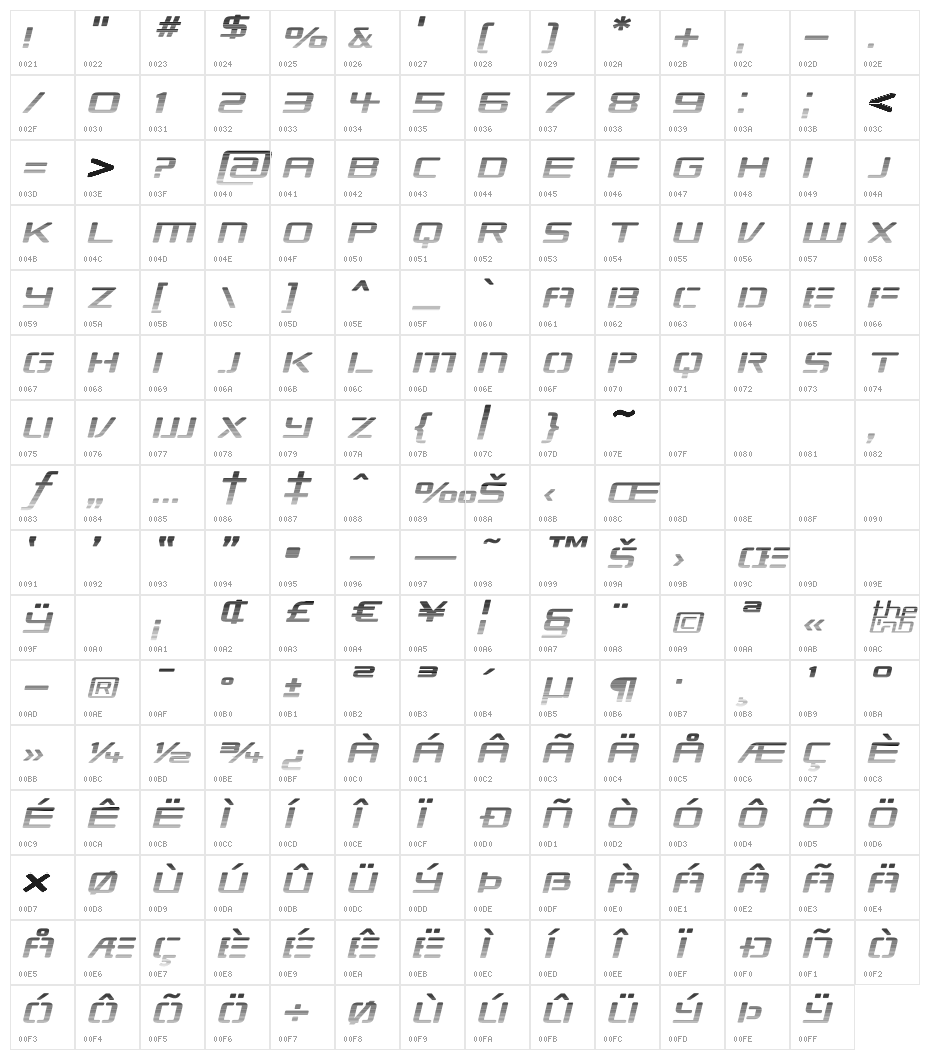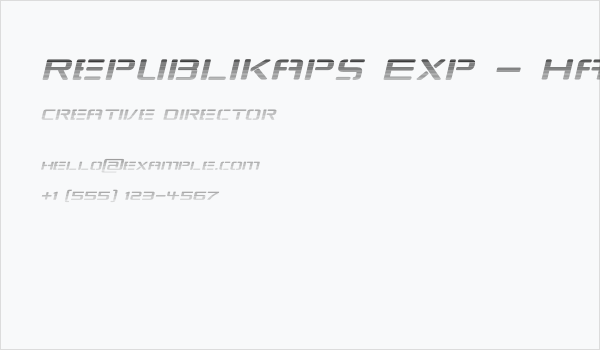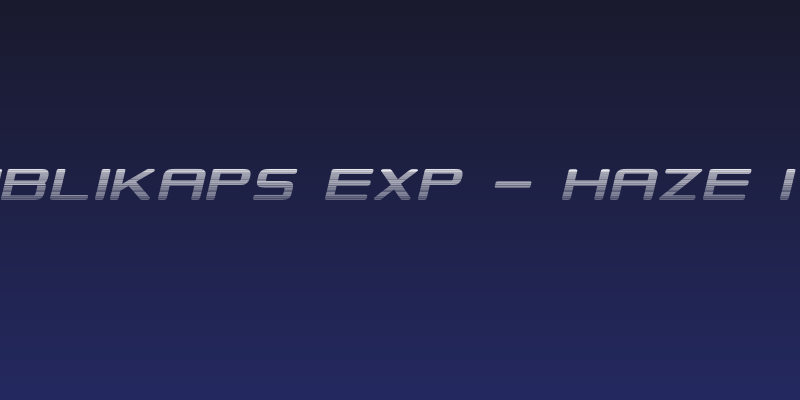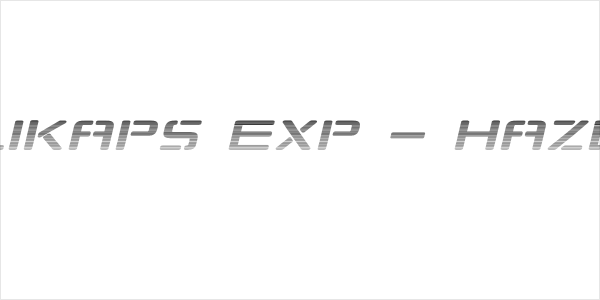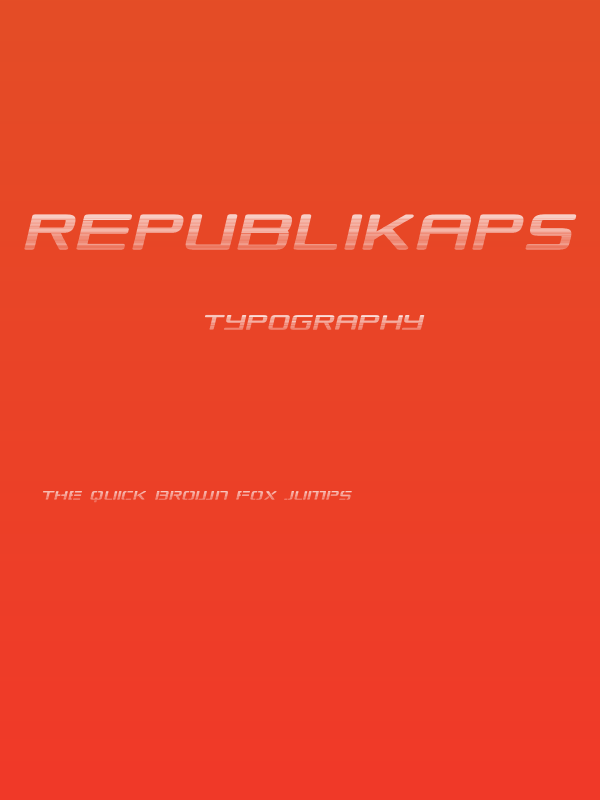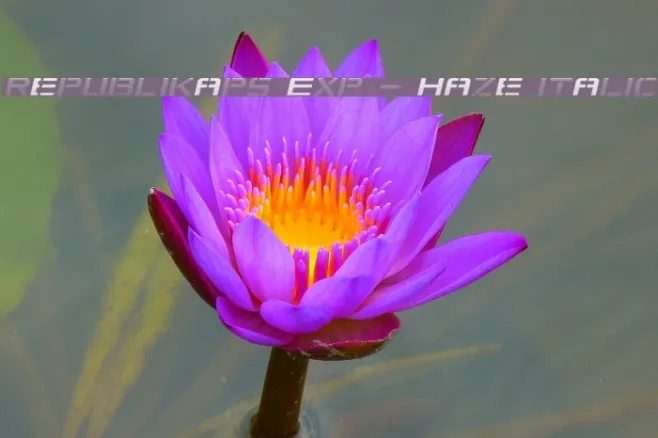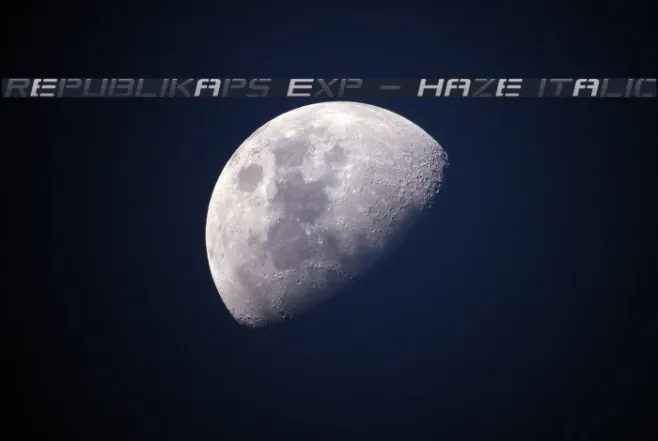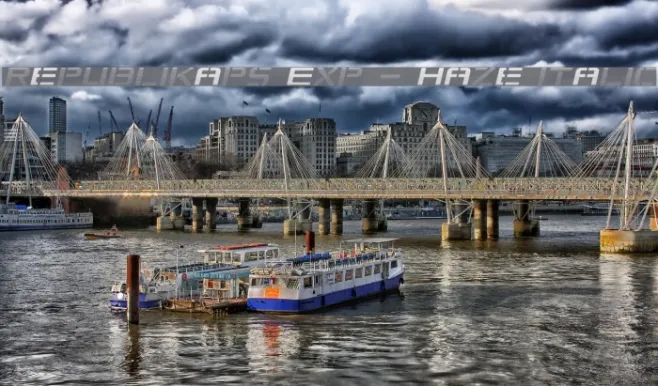
Republikaps Exp - Haze Italic Font
Republikaps Exp - Haze Italic Description
This font features a futuristic and dynamic design with a slanted, italicized style that gives it a sense of motion and speed. The characters are constructed with a geometric precision, incorporating sharp angles and clean lines. The use of varying stroke thicknesses creates a subtle haze effect, adding depth and dimension to the text. The uppercase and lowercase letters maintain a consistent style, while the numerals and special characters complement the overall aesthetic. This font's unique appearance makes it stand out, ideal for projects that require a modern and edgy look.
| Proposed Projects | Ideal for technology branding, sci-fi movie posters, video game titles, and modern advertising campaigns. |